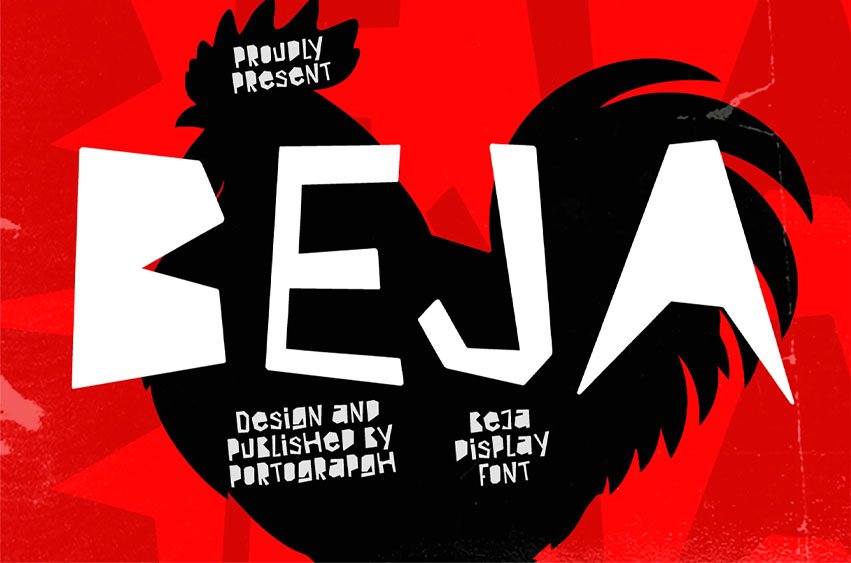
Beja Font is a playful bold display font designed to bring fun, energy, and personality into your creative projects. With its rounded shapes, quirky letterforms, and vibrant character, Boja is perfect for designs that need a cheerful and eye catching look.
Inspired by fast food branding and modern playful visuals, this font delivers a strong visual impact while keeping a friendly and approachable feel. It works beautifully for headlines, packaging, menus, and social media graphics.
Perfect For:
- Posters & Editorial Design
- Music Event & Festival Graphics
- Album Covers
- Streetwear Branding
- Creative Branding Projects
- Art & Experimental Layouts
- Social Media Campaigns
- Modern & Brutalist Design